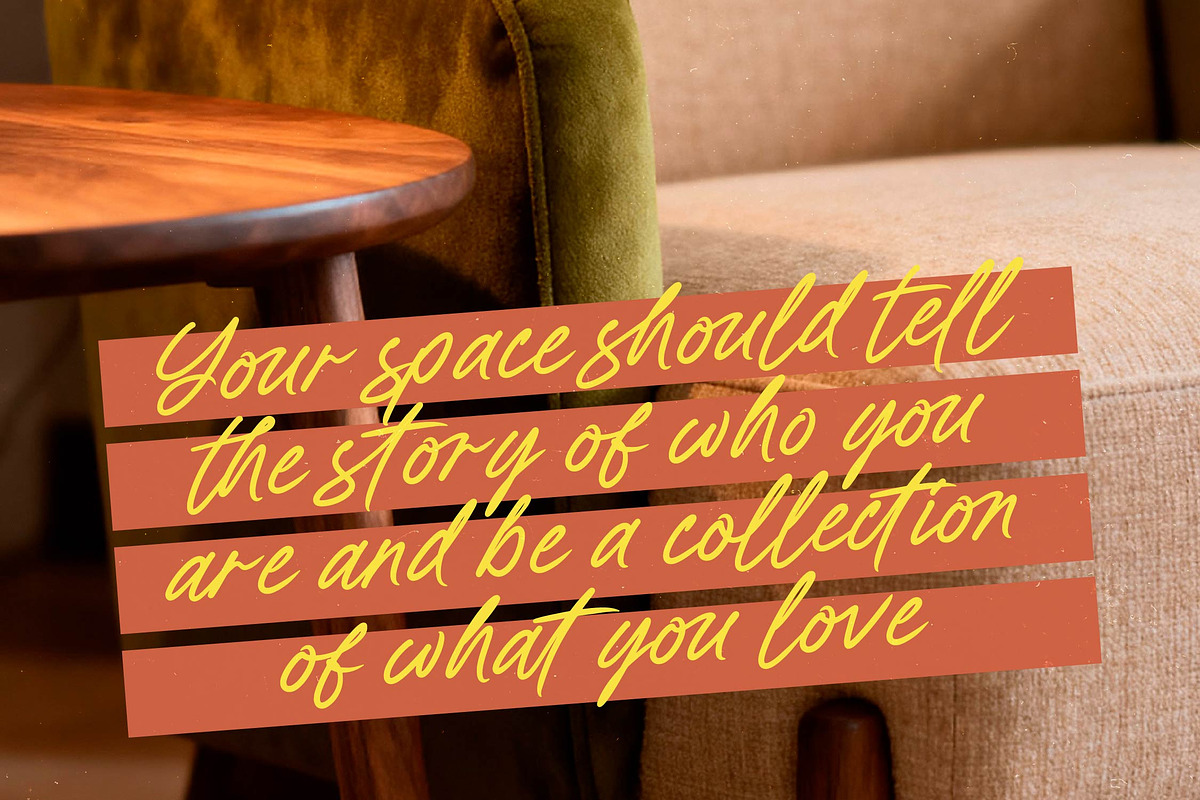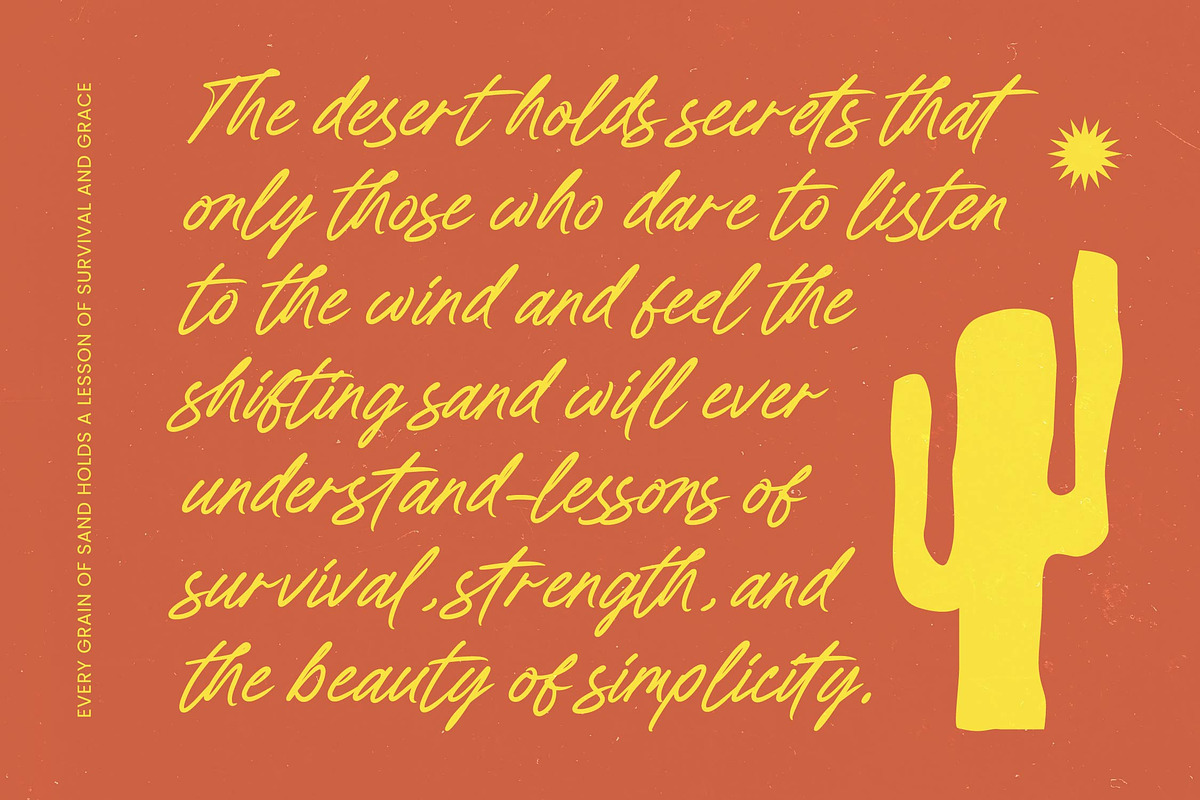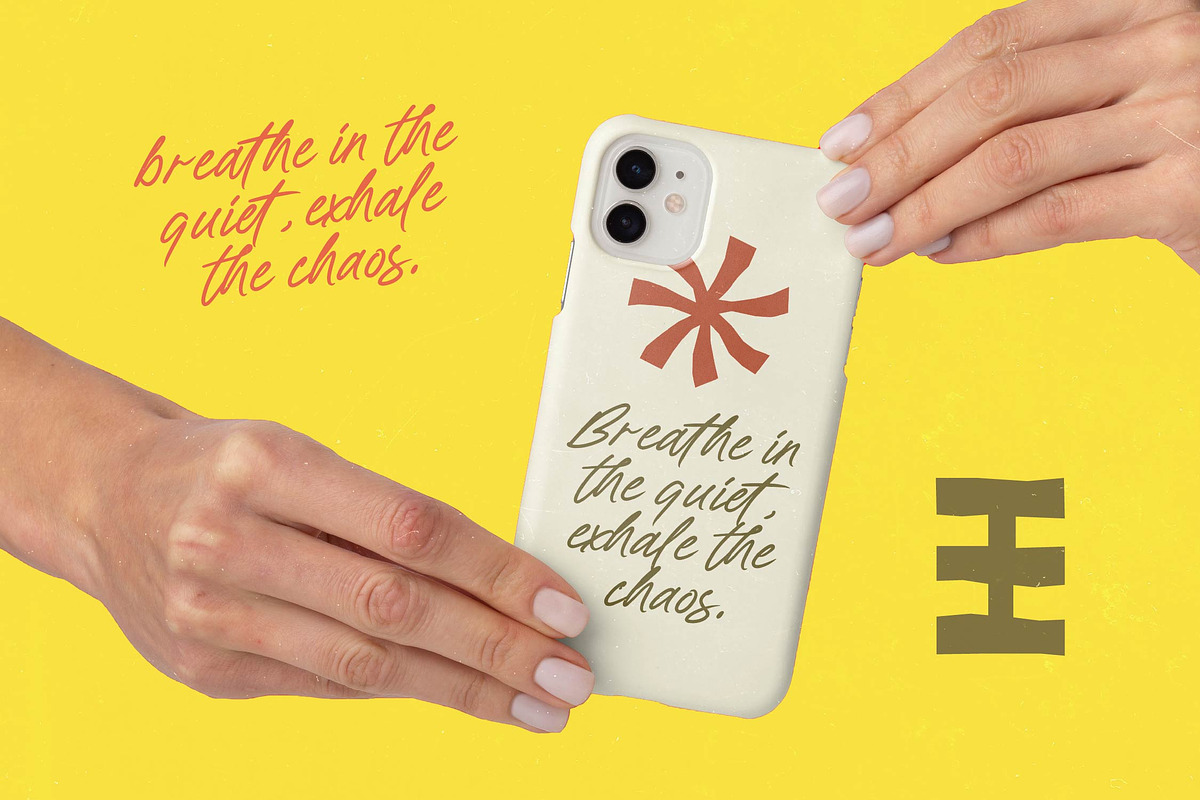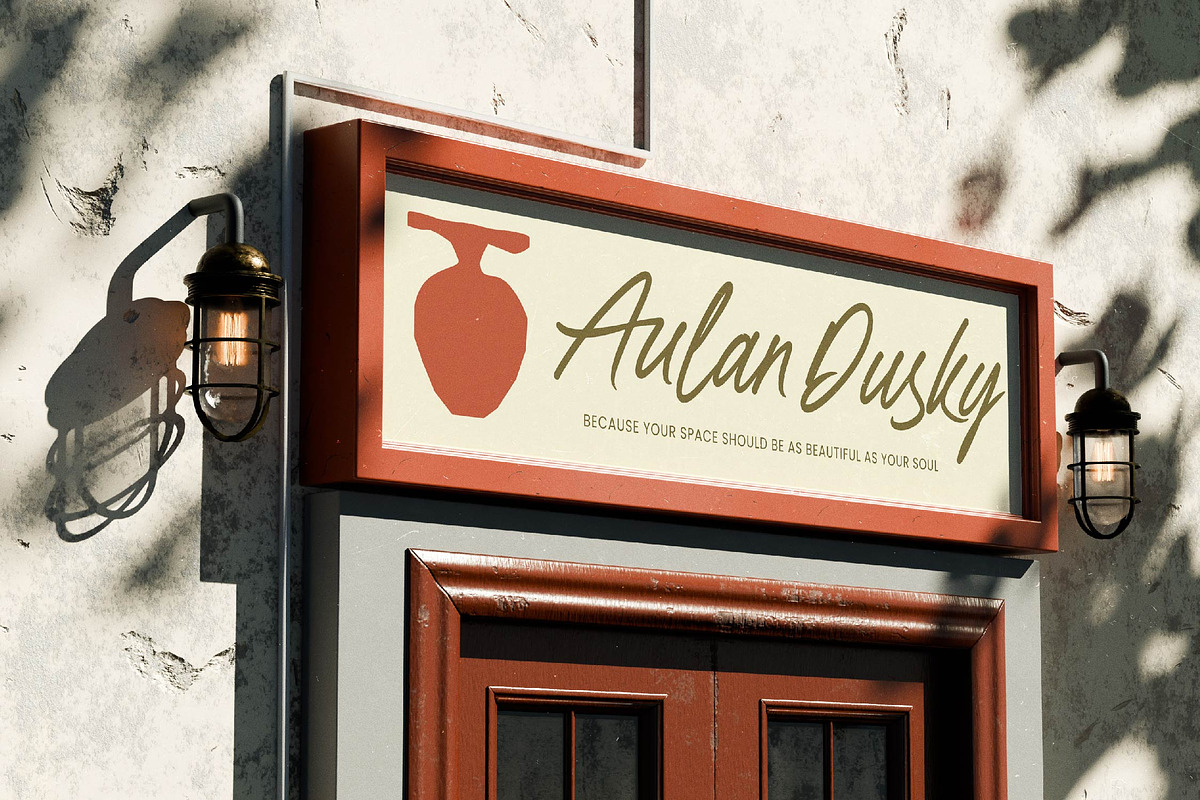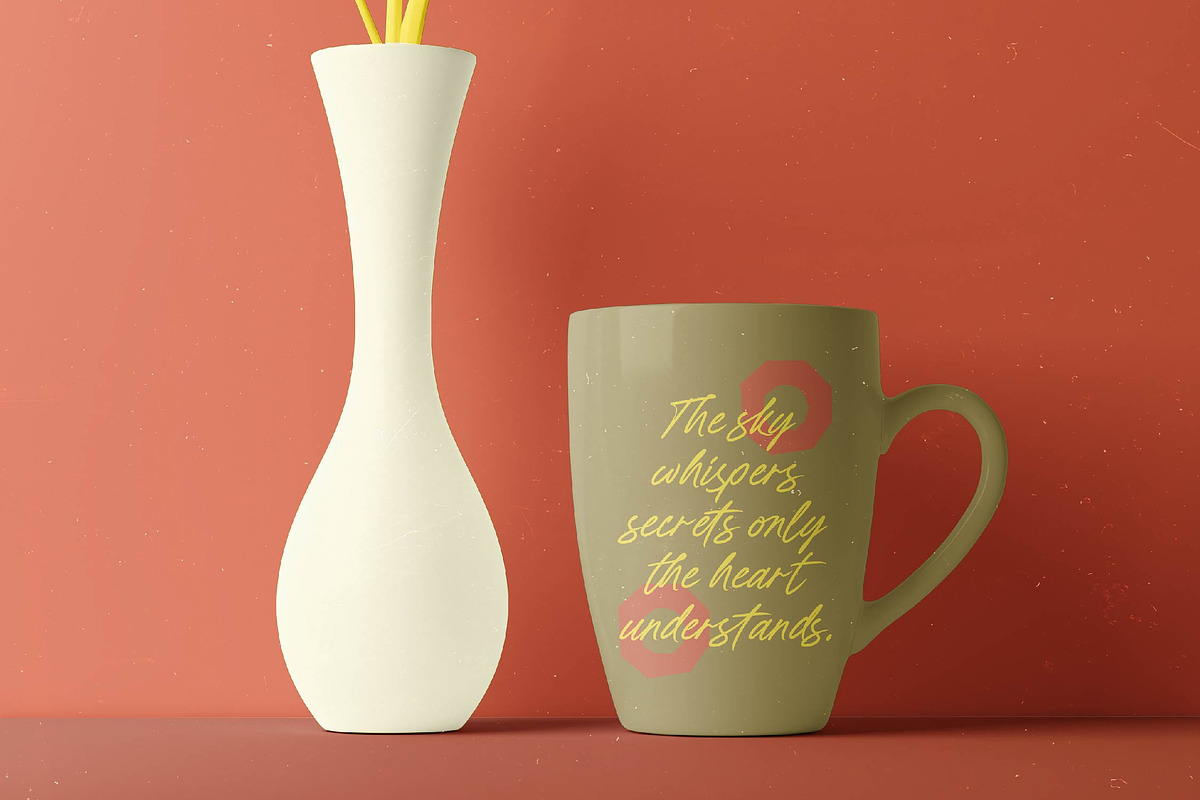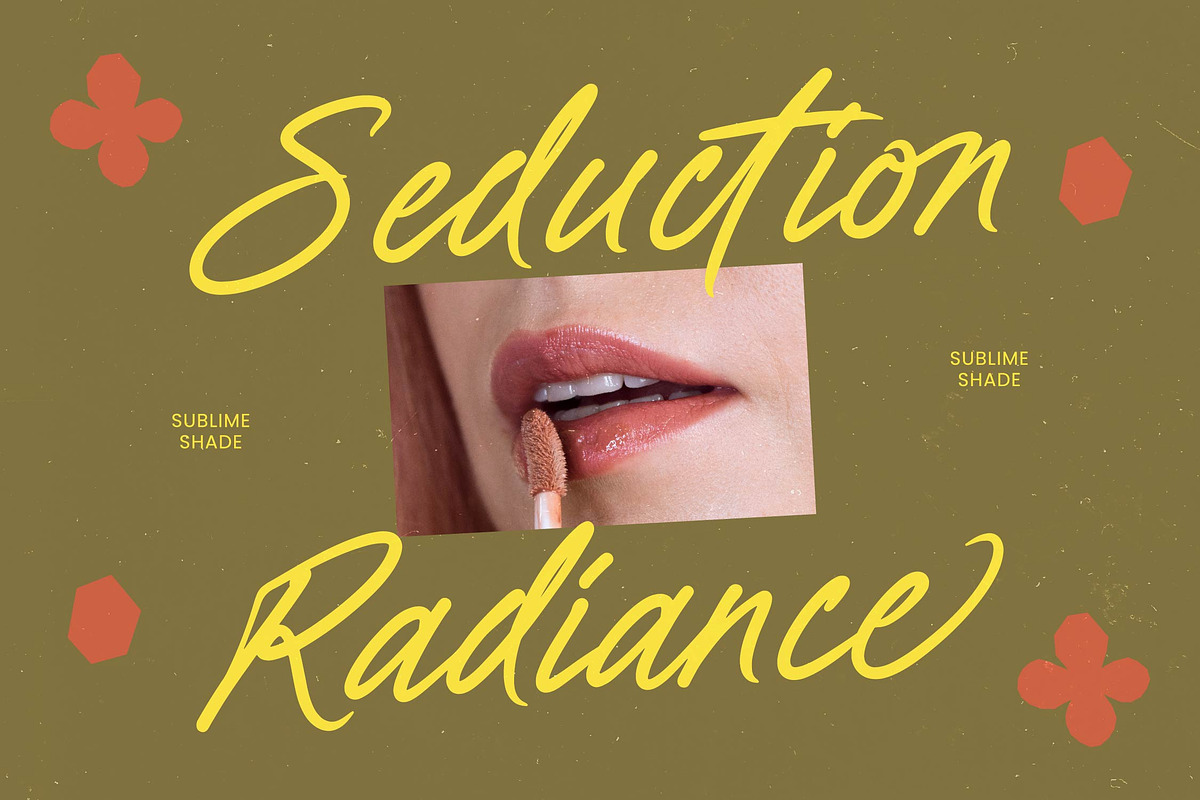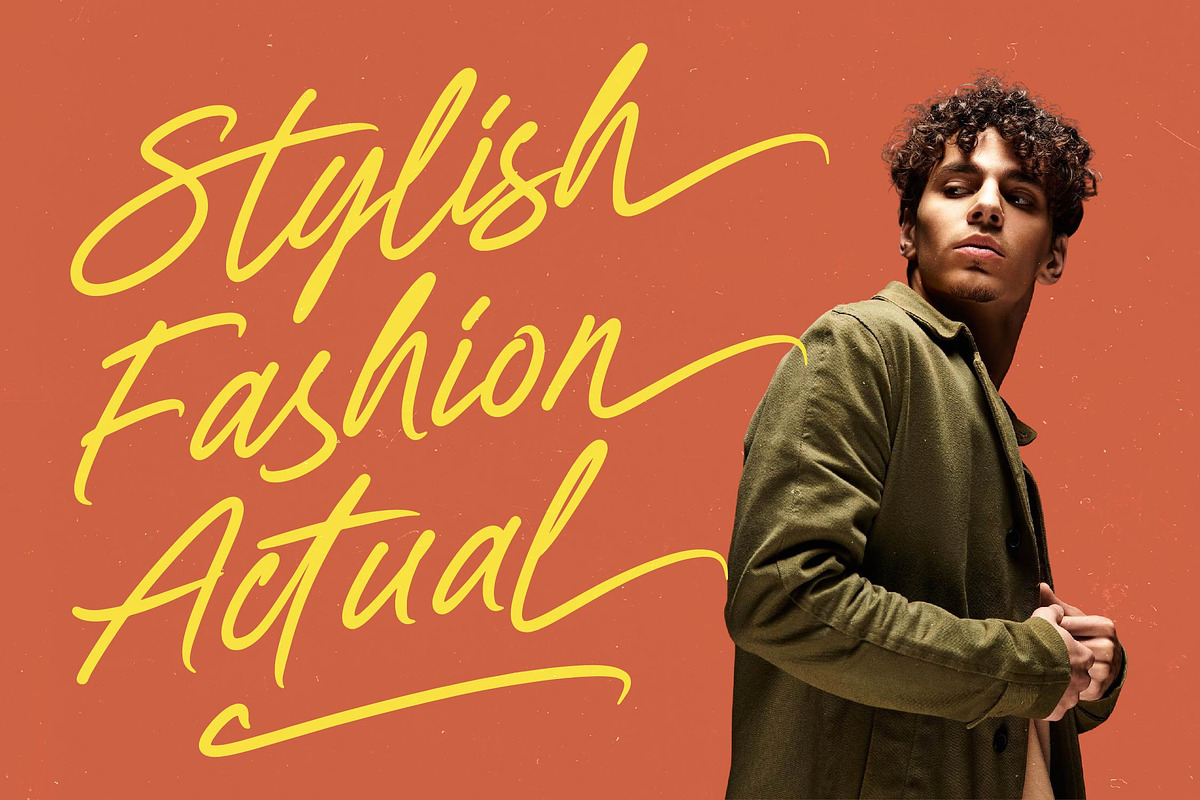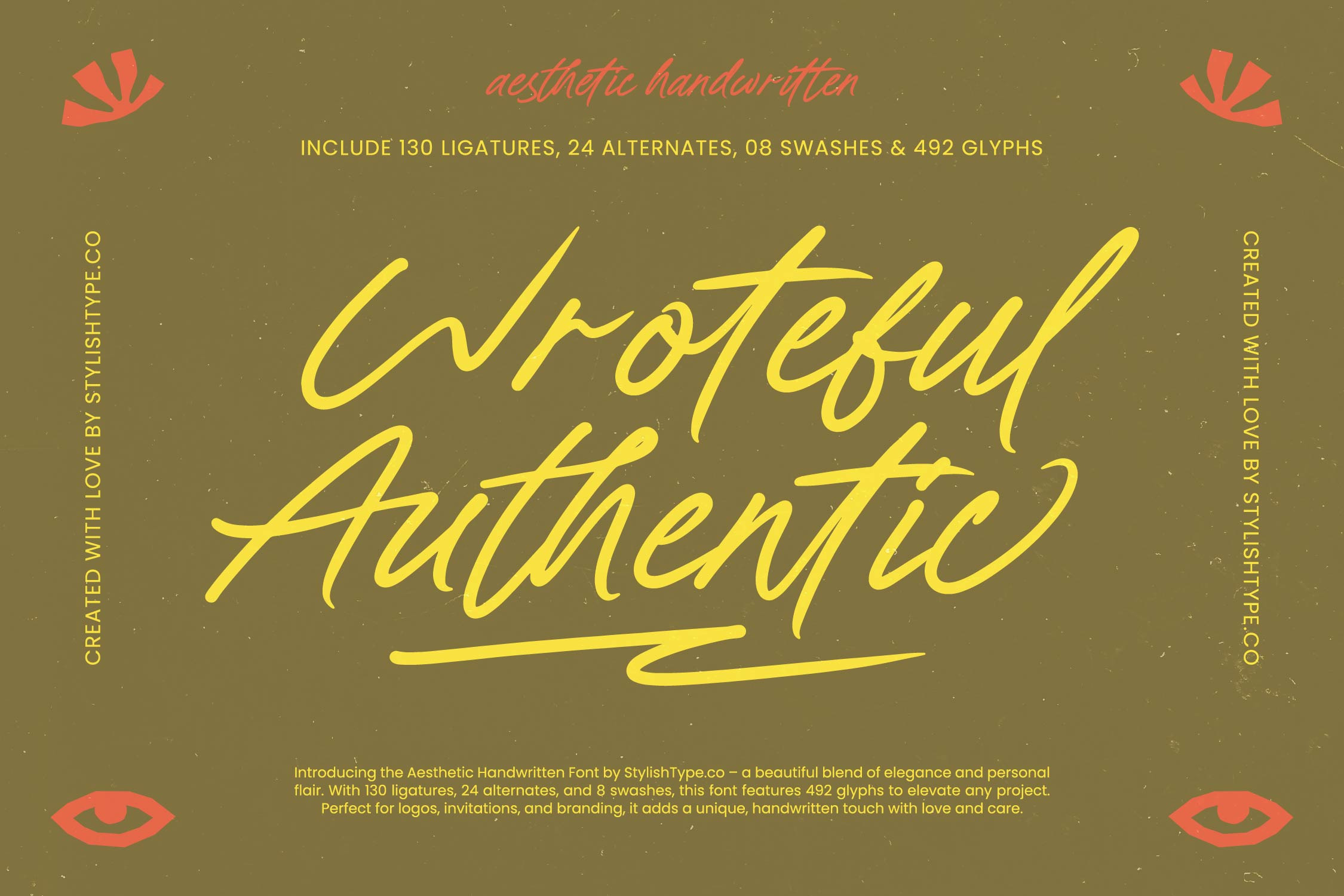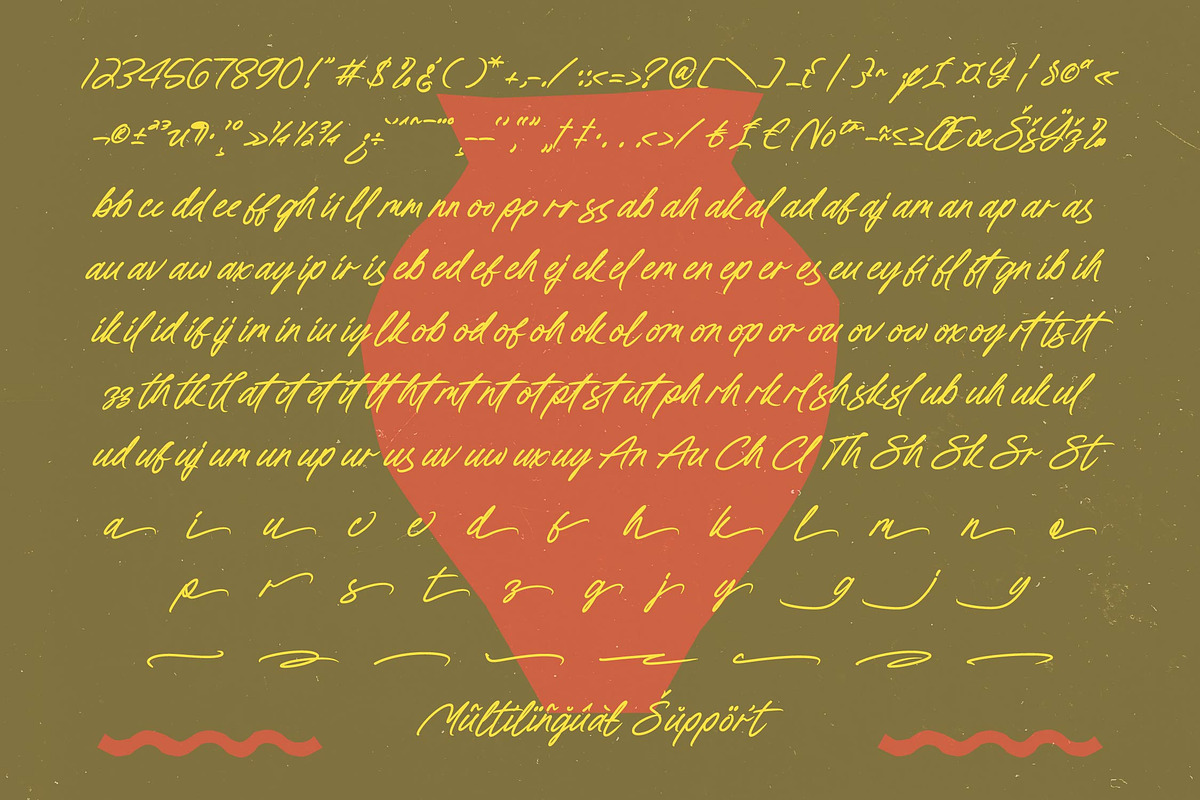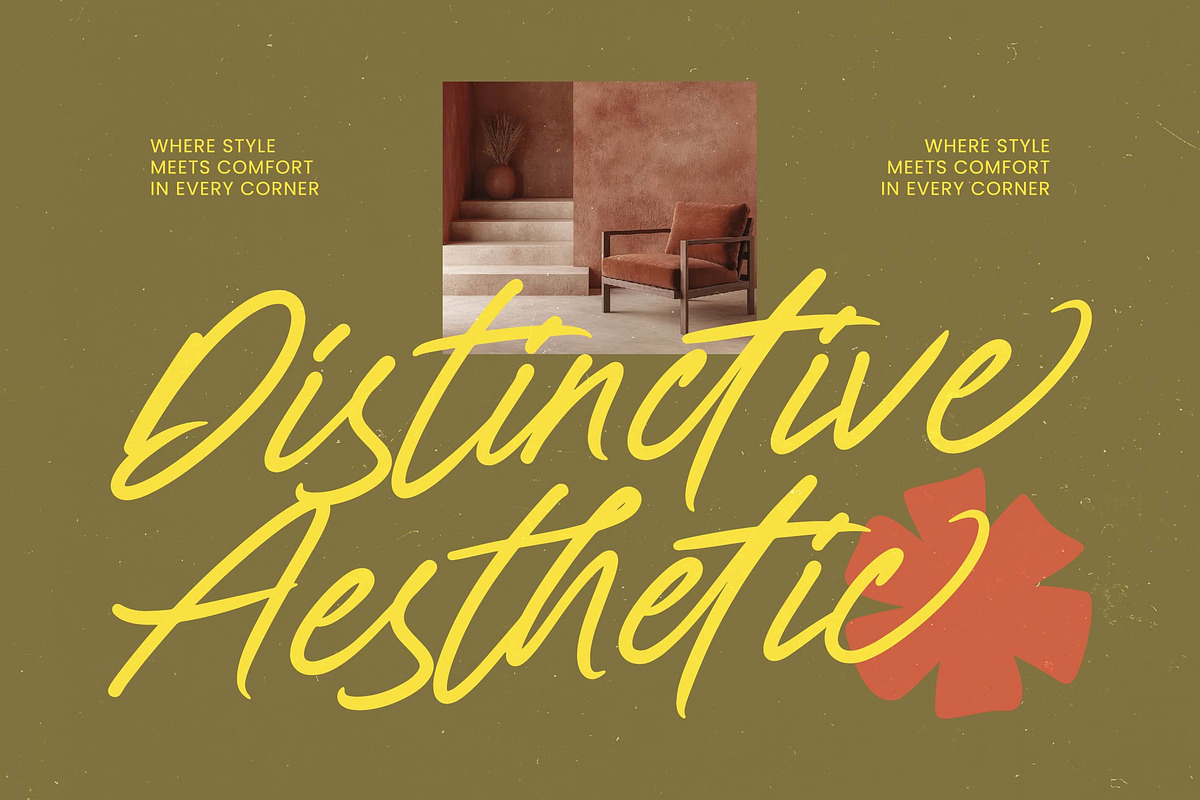
Wroteful Authentic Script Font
Wroteful Authentic - Aesthetic Handwritten Script , Experience the fluid elegance of Wroteful Authentic, a typeface designed to bridge the gap between digital perfection and human warmth. This font captures the raw, rhythmic energy of a personal signature, making every word feel like a curated piece of art.
Inspired by the natural flow of ink on parchment, the design process focused on maintaining the organic inconsistencies that make handwriting so captivating. It evokes the atmosphere of a sun-drenched Mediterranean studio where every stroke is intentional and filled with character.
This font offers a refreshing alternative to the modern serif display standard, providing the luxury typography needed for high-end creative work. Its sweeping curves act as a high-contrast serif replacement for designers who want a more expressive editorial font that delivers a massive branding impact.
Staying ahead of the modern serif trend, this typeface embraces the movement toward more tactile and authentic digital interfaces. It represents the next wave of editorial display fonts, catering to a global market that values character-driven typography over generic geometric shapes.
Whether you are crafting a unique logo design or establishing a comprehensive branding identity, this font scales beautifully across all platforms. It is particularly suited for high-fashion editorial spreads, bespoke product packaging, romantic wedding invitations, and the fast-paced world of fashion photography.
To ensure maximum versatility, the typeface is packed with 130 ligatures and 24 alternates for a truly custom feel. It also includes 8 decorative swashes and comprehensive multilingual support with international characters to satisfy professional design requirements worldwide.